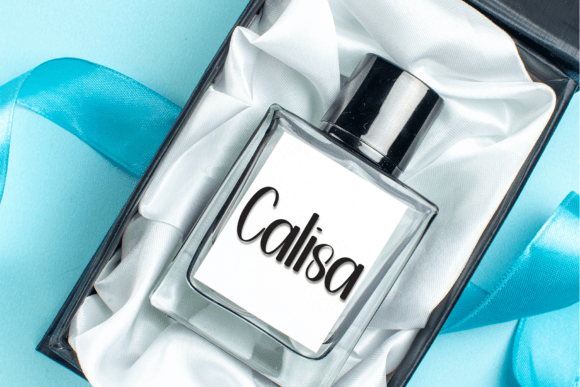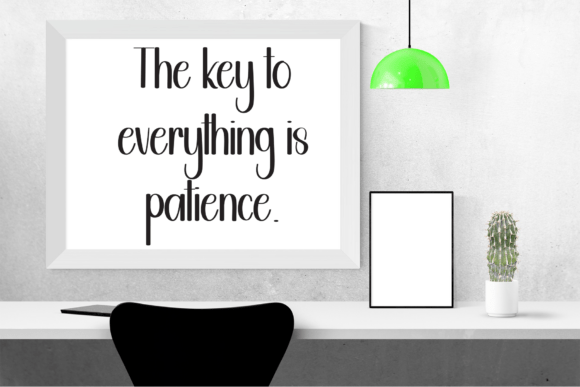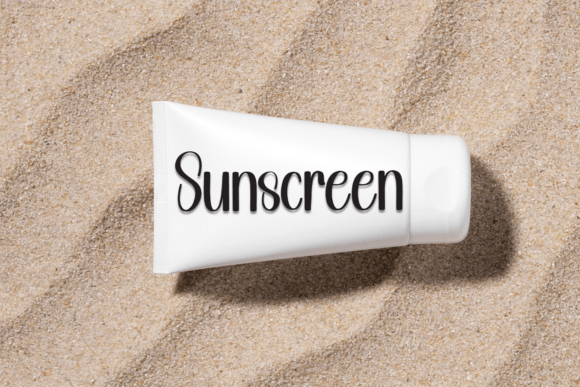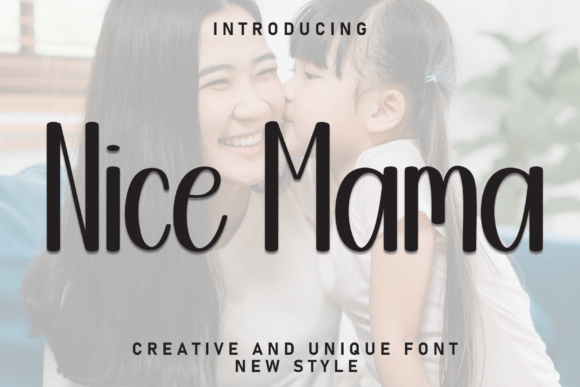
Introduction to Nice Mama Font
Nice Mama is a casual and neat display font designed to bring warmth and clarity to your projects.
With its clean structure and approachable style, it suits branding, headlines, and everyday designs The balanced letterforms offer readability and charm, making every message feel genuine and inviting.